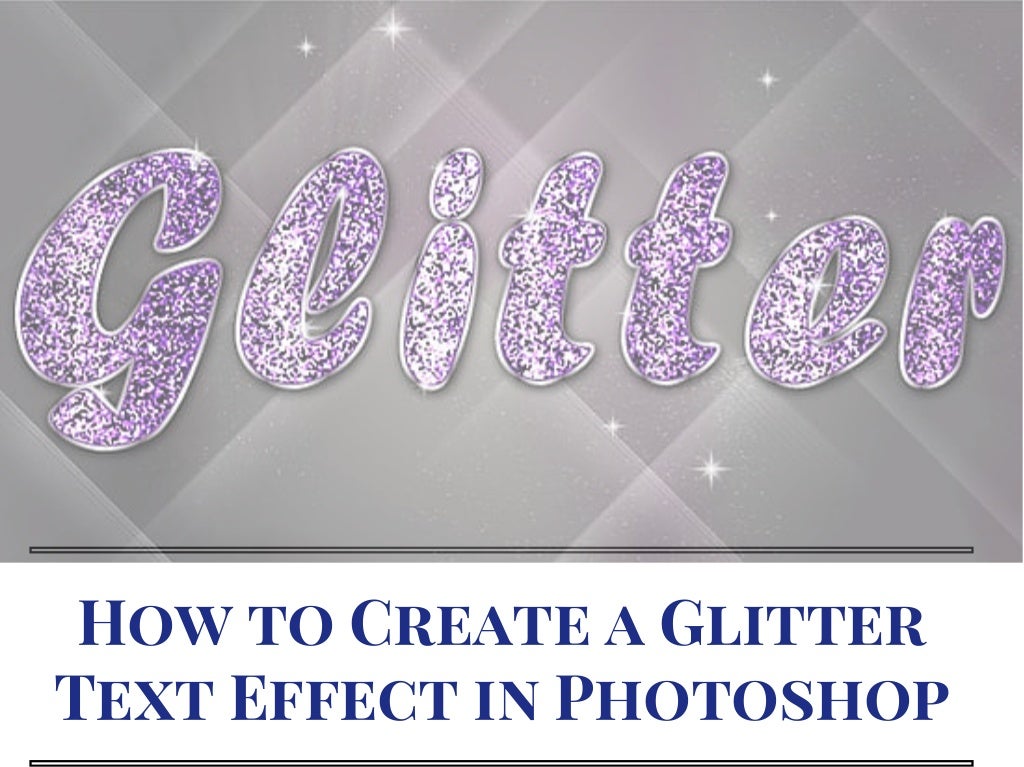
How To Make Font Glitter In Photoshop . in this tutorial you will learn how to create a beautiful glitter text effect in photoshop using some basic layer styles and any glitter texture that you choose. You can easily create a glitter effect with a few filters and layer adjustments. adobe photoshop filters can be used to create many amazing textures. I have also added some sparkle brushes to make the text more shiny. This wikihow article teaches you how to create a glitter effect and apply it to text or a shape in photoshop. This tutorial will show you how to create a glitter texture, and then use it with a couple of layer styles to create a glitter glue inspired text effect. to have all the fun of glitter in your digital marketing without any of the mess, follow these steps to make an awesome glitter text effect minus any offending sparkles that may linger for ages on end. in this glitter text photoshop tutorial, i'll show you all of the different ways. this tutorial will show you a super quick and easy way to create a. Then you can apply the effect to text or other shapes. do you want to add a glitter effect in photoshop? this is an easy and fast tutorial on how to make glitter text effect in photoshop. I will show you how to make.
adobe photoshop filters can be used to create many amazing textures. I have also added some sparkle brushes to make the text more shiny. this is an easy and fast tutorial on how to make glitter text effect in photoshop. You can easily create a glitter effect with a few filters and layer adjustments. to have all the fun of glitter in your digital marketing without any of the mess, follow these steps to make an awesome glitter text effect minus any offending sparkles that may linger for ages on end. in this glitter text photoshop tutorial, i'll show you all of the different ways. this tutorial will show you a super quick and easy way to create a. This tutorial will show you how to create a glitter texture, and then use it with a couple of layer styles to create a glitter glue inspired text effect. Then you can apply the effect to text or other shapes. I will show you how to make.
Discover how to create magical glitter text in using clipping
How To Make Font Glitter In Photoshop this tutorial will show you a super quick and easy way to create a. I have also added some sparkle brushes to make the text more shiny. this tutorial will show you a super quick and easy way to create a. This tutorial will show you how to create a glitter texture, and then use it with a couple of layer styles to create a glitter glue inspired text effect. adobe photoshop filters can be used to create many amazing textures. this is an easy and fast tutorial on how to make glitter text effect in photoshop. I will show you how to make. in this glitter text photoshop tutorial, i'll show you all of the different ways. This wikihow article teaches you how to create a glitter effect and apply it to text or a shape in photoshop. do you want to add a glitter effect in photoshop? in this tutorial you will learn how to create a beautiful glitter text effect in photoshop using some basic layer styles and any glitter texture that you choose. to have all the fun of glitter in your digital marketing without any of the mess, follow these steps to make an awesome glitter text effect minus any offending sparkles that may linger for ages on end. You can easily create a glitter effect with a few filters and layer adjustments. Then you can apply the effect to text or other shapes.
Glittering Text Effect Glitter Font Textuts How To Make Font Glitter In Photoshop to have all the fun of glitter in your digital marketing without any of the mess, follow these steps to make an awesome glitter text effect minus any offending sparkles that may linger for ages on end. in this tutorial you will learn how to create a beautiful glitter text effect in photoshop using some basic layer styles. How To Make Font Glitter In Photoshop.
A Typical English Home How To Make Glitter Text In How To Make Font Glitter In Photoshop in this glitter text photoshop tutorial, i'll show you all of the different ways. You can easily create a glitter effect with a few filters and layer adjustments. This tutorial will show you how to create a glitter texture, and then use it with a couple of layer styles to create a glitter glue inspired text effect. do. How To Make Font Glitter In Photoshop.
How to Make Glitter Text in Glitter text, How to How To Make Font Glitter In Photoshop this is an easy and fast tutorial on how to make glitter text effect in photoshop. I will show you how to make. I have also added some sparkle brushes to make the text more shiny. in this tutorial you will learn how to create a beautiful glitter text effect in photoshop using some basic layer styles and. How To Make Font Glitter In Photoshop.
Glitter Text Tutorial How to add glitter to your text in How To Make Font Glitter In Photoshop do you want to add a glitter effect in photoshop? this is an easy and fast tutorial on how to make glitter text effect in photoshop. in this glitter text photoshop tutorial, i'll show you all of the different ways. to have all the fun of glitter in your digital marketing without any of the mess,. How To Make Font Glitter In Photoshop.
How to make glitter text in YouTube How To Make Font Glitter In Photoshop in this glitter text photoshop tutorial, i'll show you all of the different ways. I will show you how to make. this tutorial will show you a super quick and easy way to create a. I have also added some sparkle brushes to make the text more shiny. You can easily create a glitter effect with a few. How To Make Font Glitter In Photoshop.
Text Effects Create a Glitter Text Effect in Tutorial How To Make Font Glitter In Photoshop do you want to add a glitter effect in photoshop? You can easily create a glitter effect with a few filters and layer adjustments. This tutorial will show you how to create a glitter texture, and then use it with a couple of layer styles to create a glitter glue inspired text effect. Then you can apply the effect. How To Make Font Glitter In Photoshop.
How to Make Glitter Filled Sparkle Text in Adobe Elements 15 How To Make Font Glitter In Photoshop this is an easy and fast tutorial on how to make glitter text effect in photoshop. Then you can apply the effect to text or other shapes. adobe photoshop filters can be used to create many amazing textures. You can easily create a glitter effect with a few filters and layer adjustments. This tutorial will show you how. How To Make Font Glitter In Photoshop.
glitter text effect how to add glitter in canva. text glitter effect How To Make Font Glitter In Photoshop This wikihow article teaches you how to create a glitter effect and apply it to text or a shape in photoshop. do you want to add a glitter effect in photoshop? adobe photoshop filters can be used to create many amazing textures. to have all the fun of glitter in your digital marketing without any of the. How To Make Font Glitter In Photoshop.
How To Glitter Text In Wpromote How To Make Font Glitter In Photoshop do you want to add a glitter effect in photoshop? this is an easy and fast tutorial on how to make glitter text effect in photoshop. in this glitter text photoshop tutorial, i'll show you all of the different ways. to have all the fun of glitter in your digital marketing without any of the mess,. How To Make Font Glitter In Photoshop.